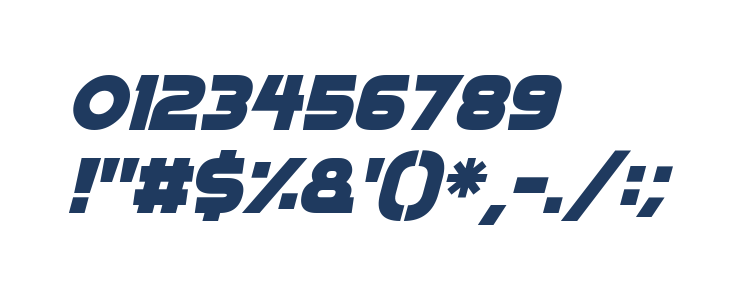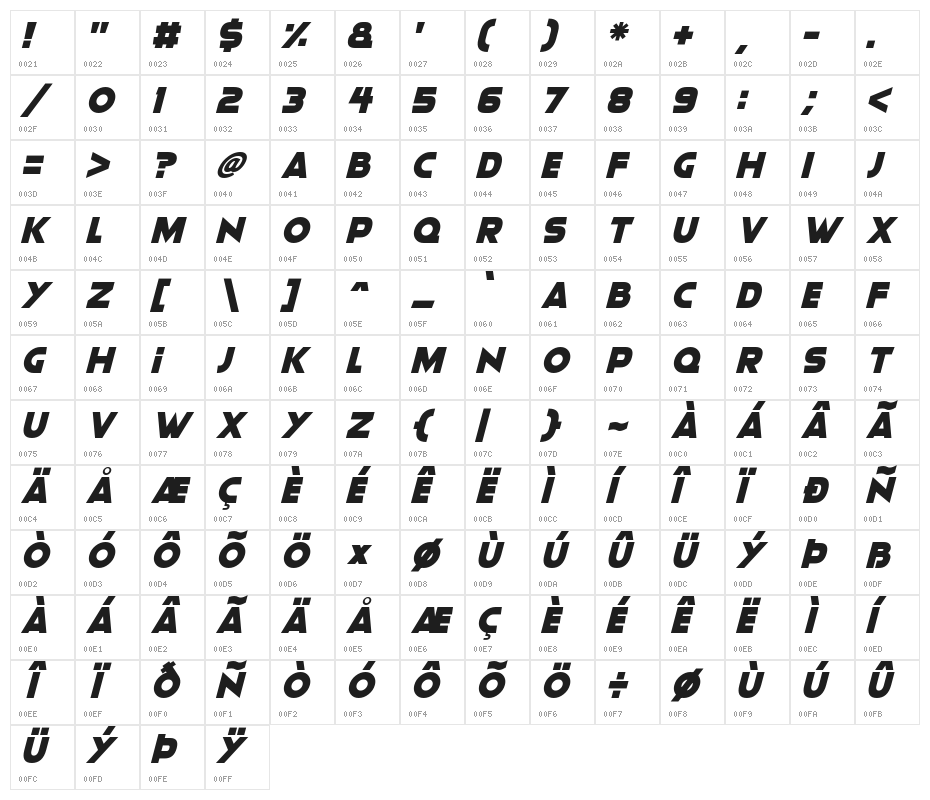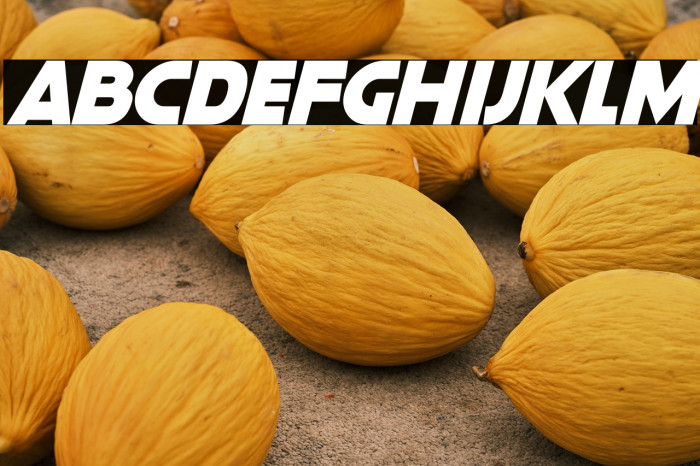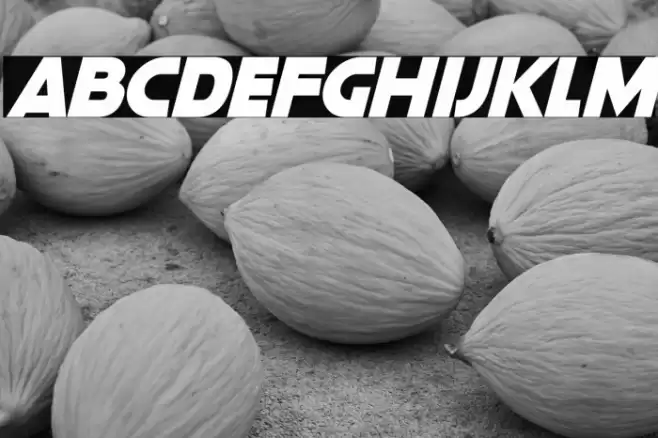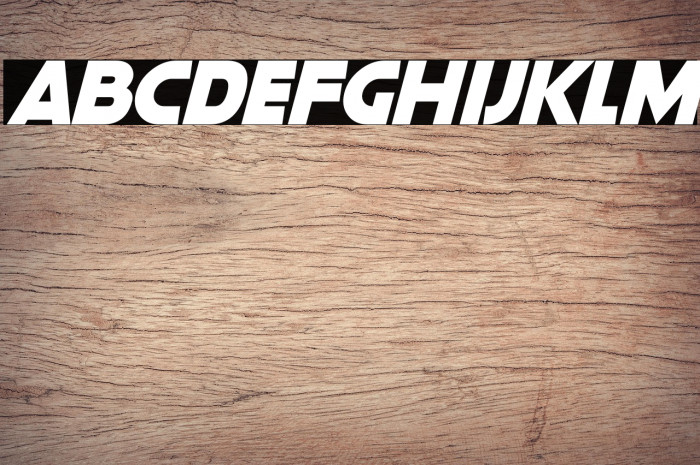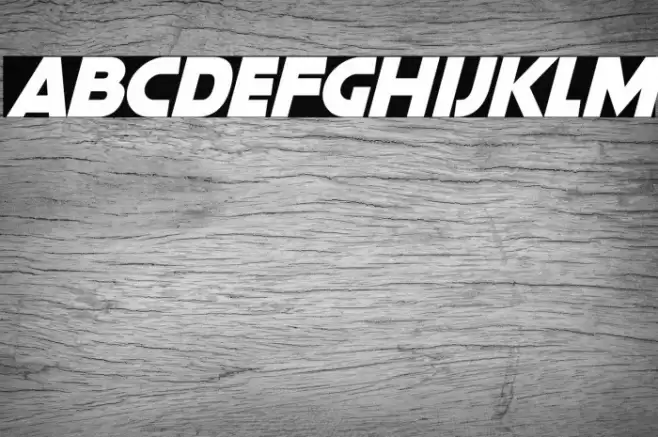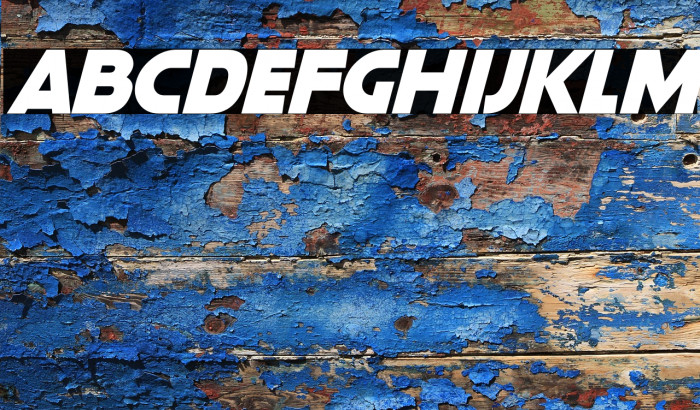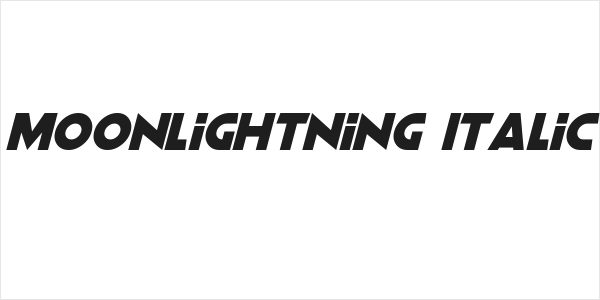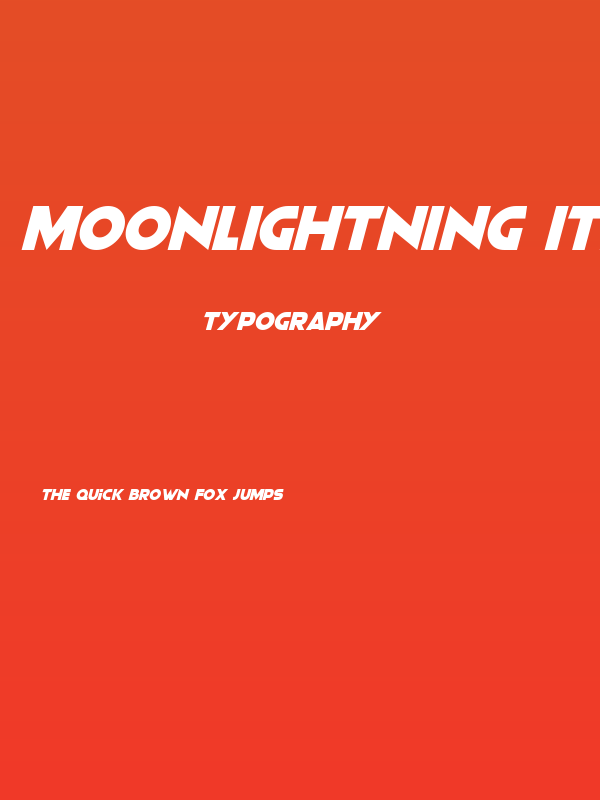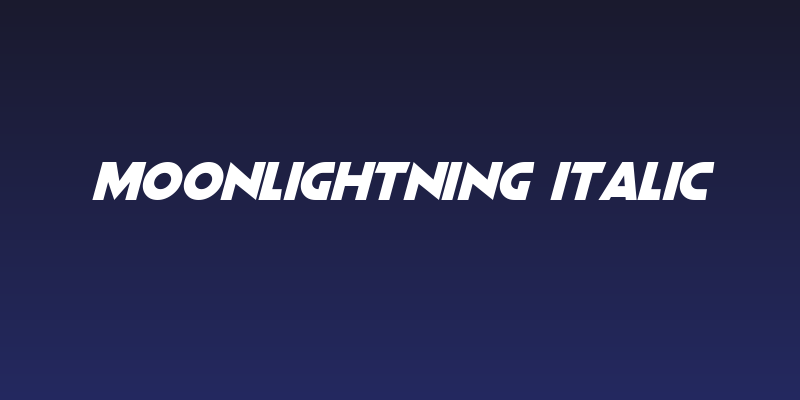
Moonlightning Italic Font
Moonlightning Italic Description
This font features a bold, italicized style with a modern and dynamic appearance. The characters are slanted, giving a sense of movement and energy. The strokes are thick and consistent, providing a strong visual impact. The uppercase and lowercase letters maintain a uniform slant, enhancing the cohesive look. The numbers and special characters follow the same design principles, ensuring versatility across different uses. The overall design is sleek and contemporary, making it suitable for projects that require a bold statement.
| Proposed Projects | Ideal for sports branding, dynamic posters, modern advertising, and eye-catching headlines. |